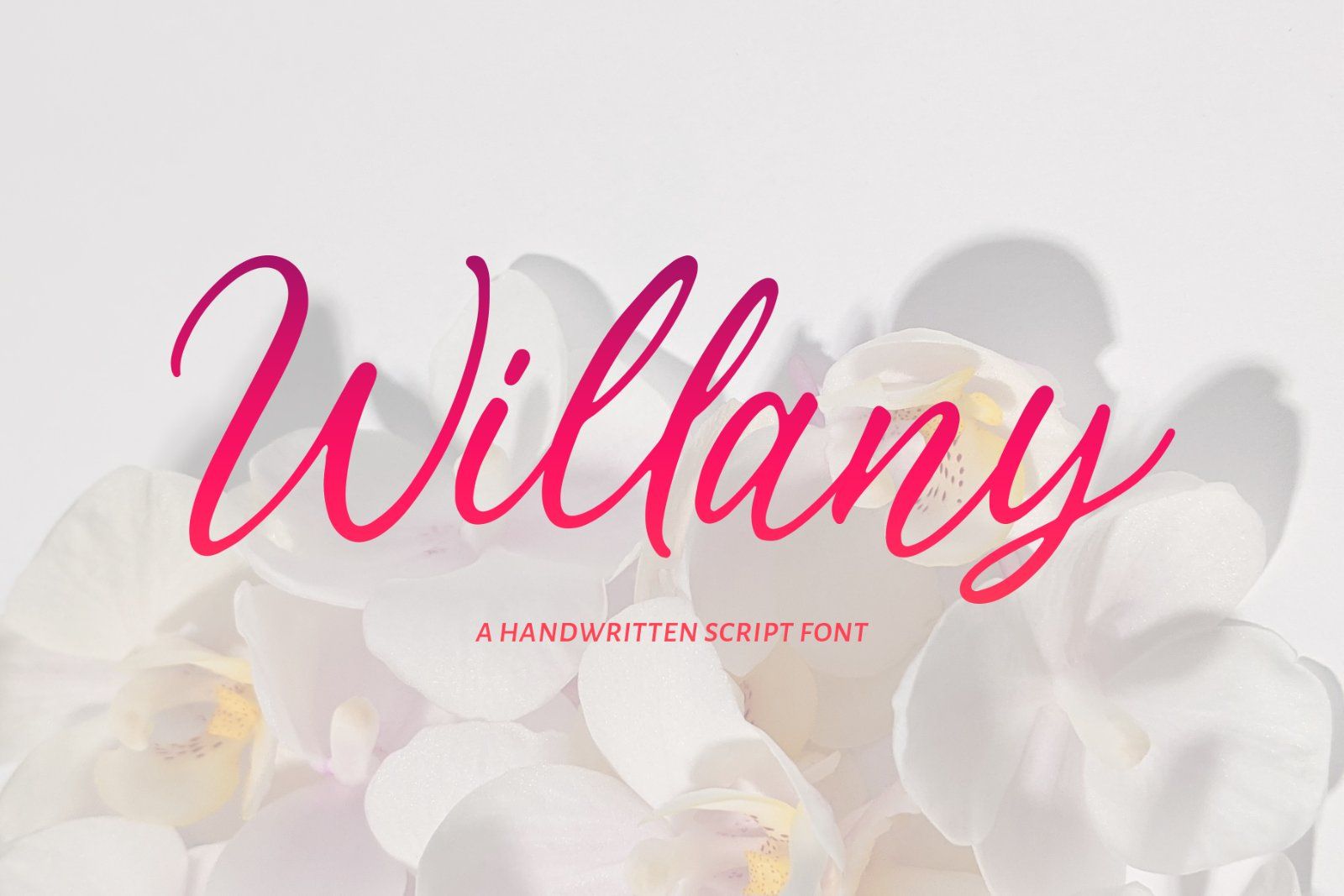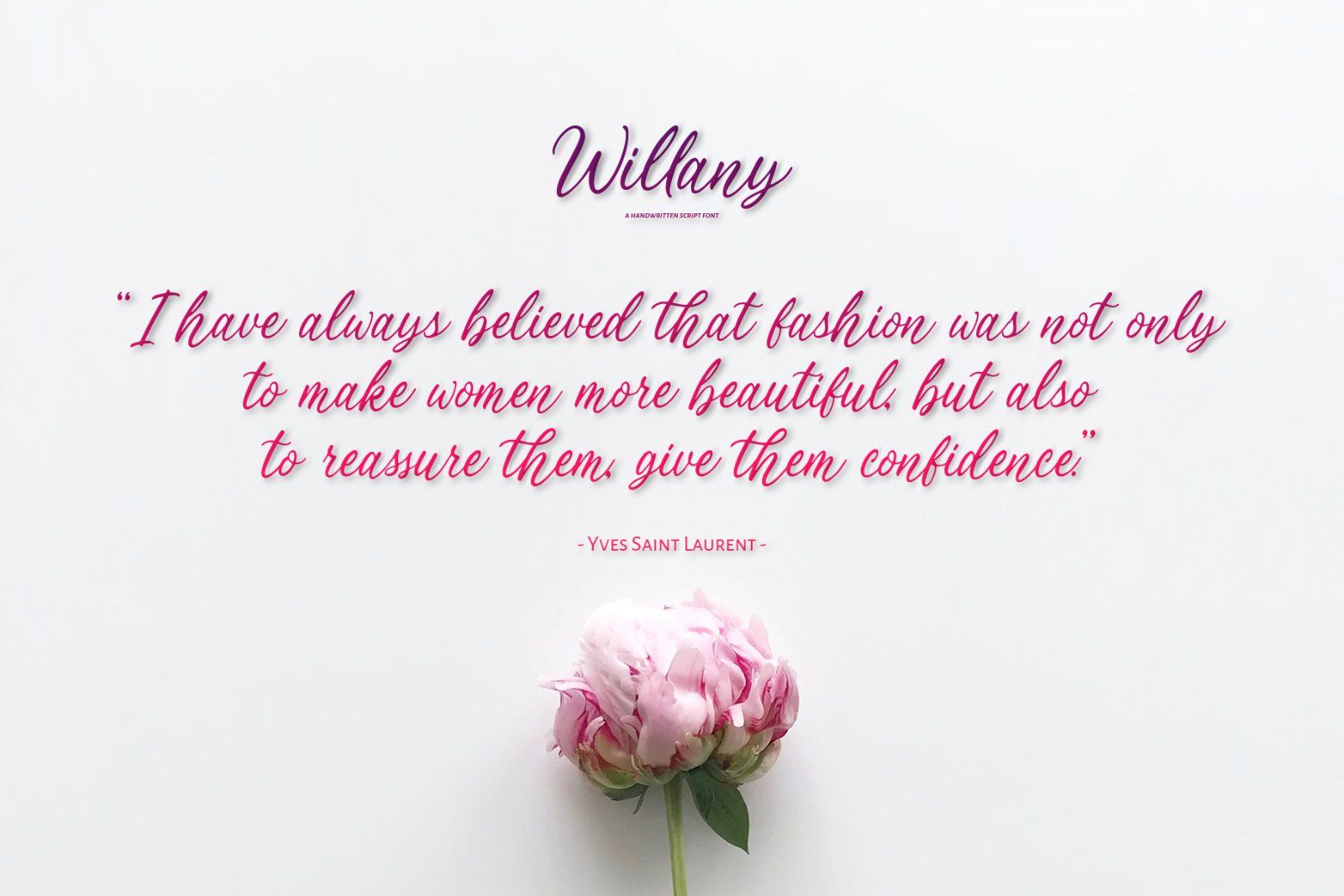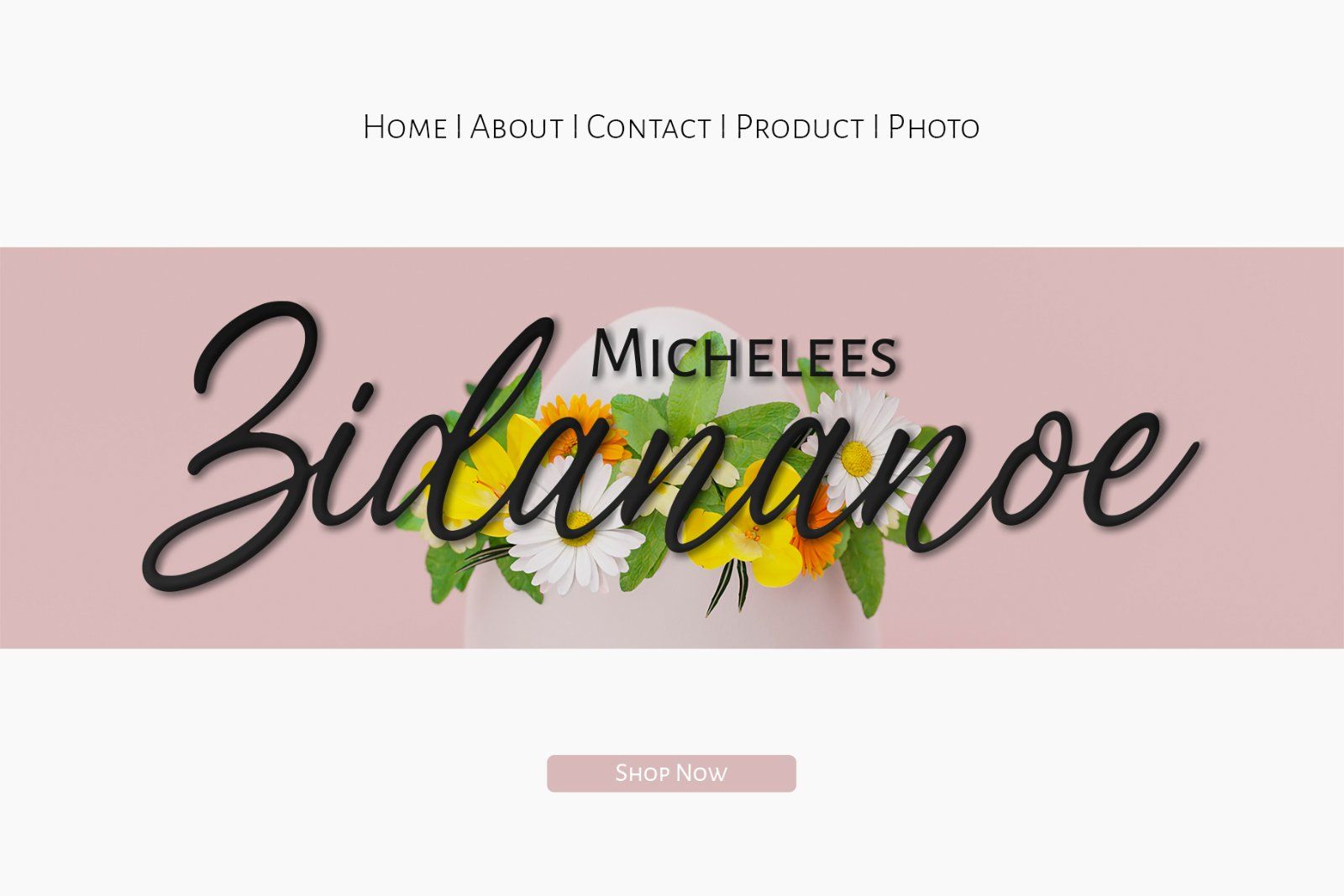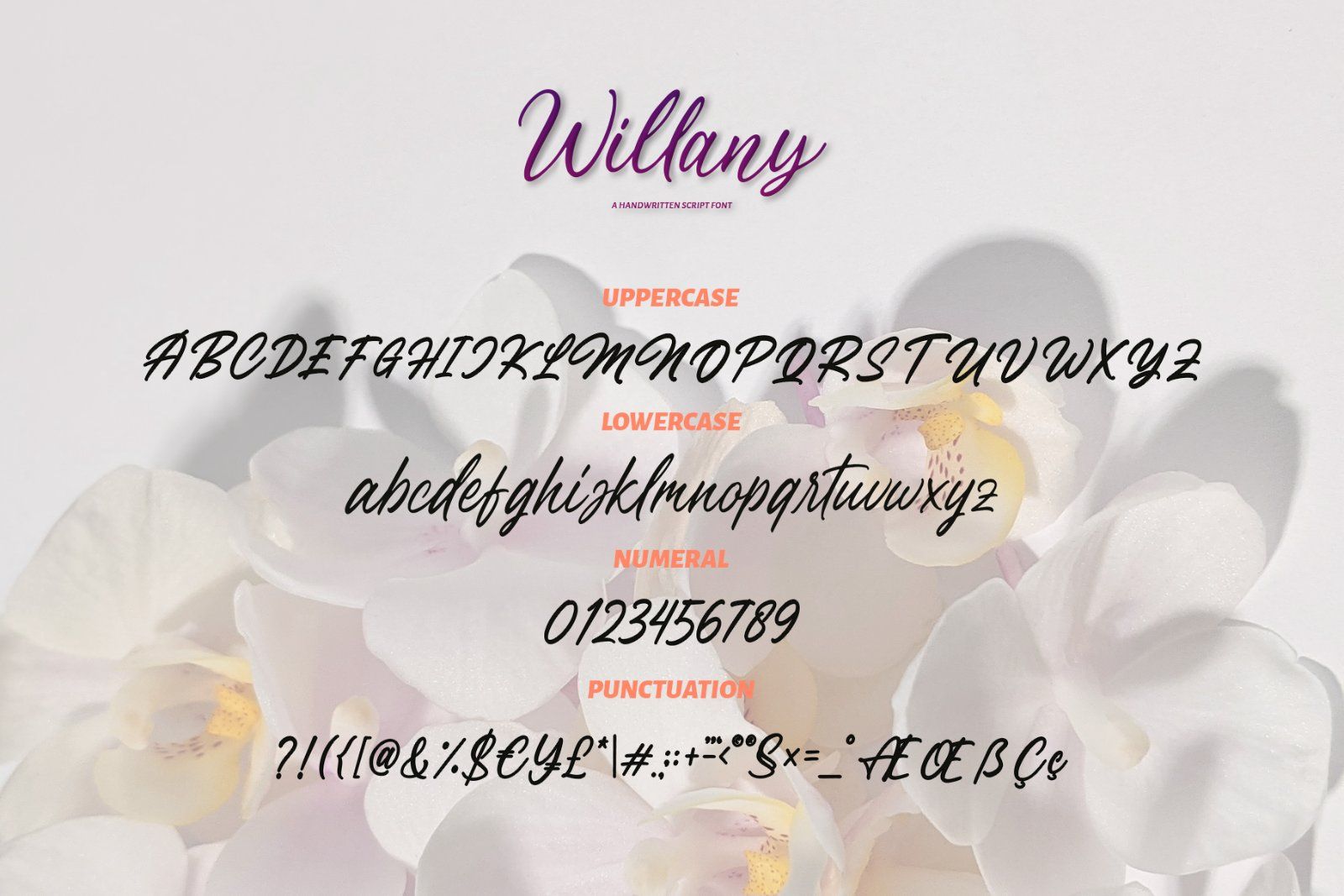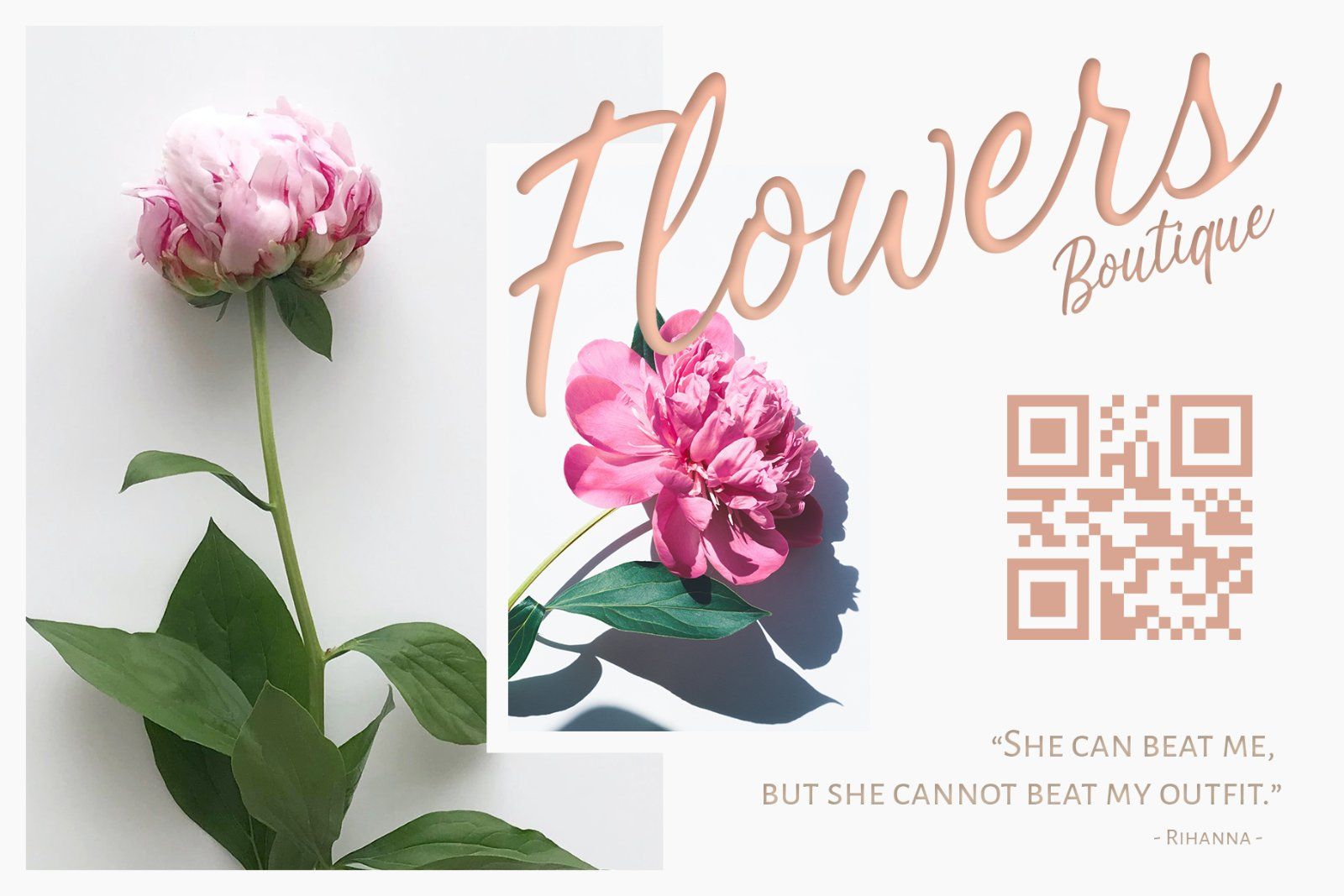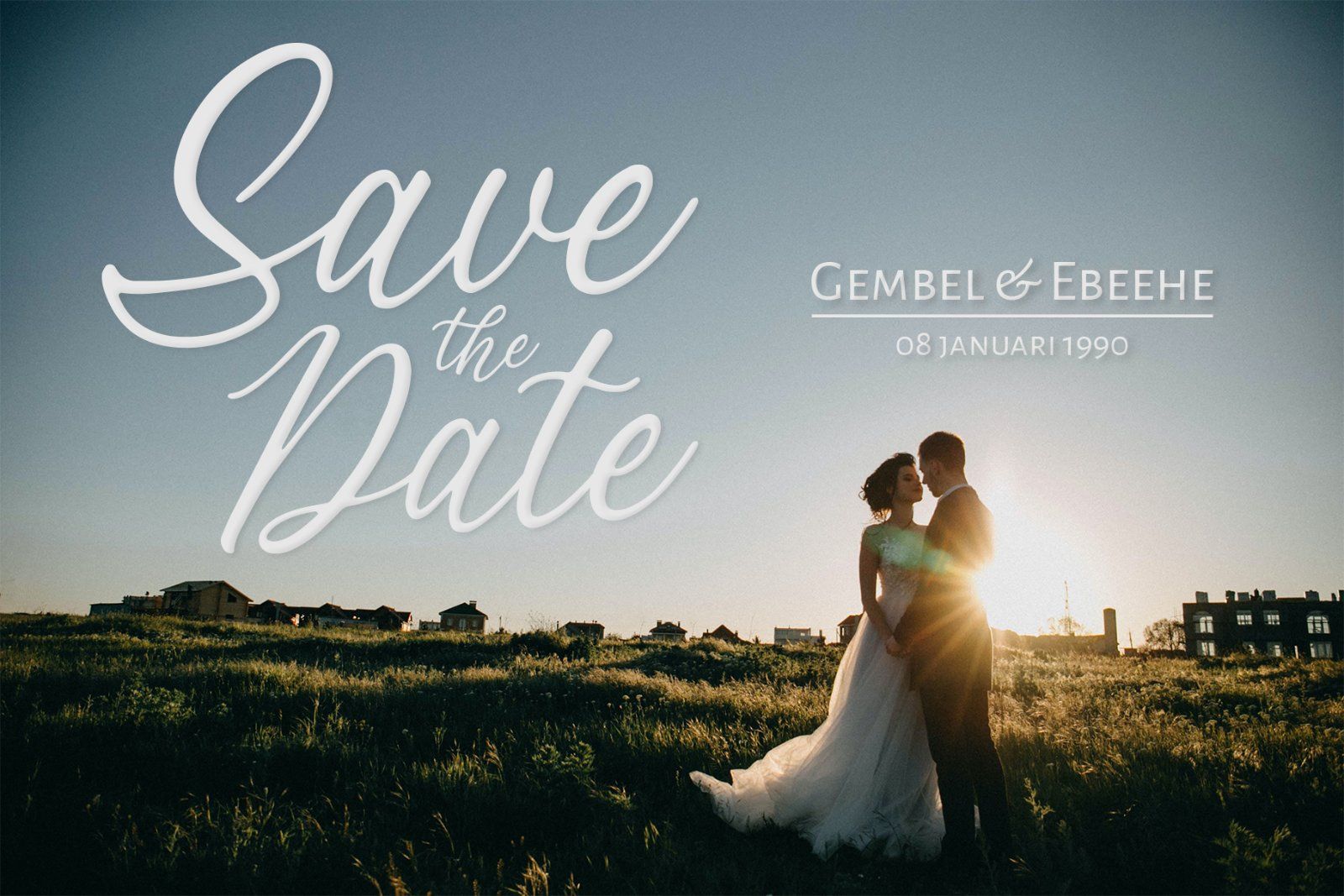
Willany Signature - Modern Script Font
Introducing the new Willany Signature a modern script handwritten font !!! For those of you who are needing a touch of elegant, simple, natural and modernity for your designs, this font was created for you!Willany Signature was built with OpenType features and includes ligatures, alternates, begining and ending swashes, numbers, punctuation, and it also supports your work design. The font has Great for head title, printed quotes, greeting card, invitation, wedding, events and etc